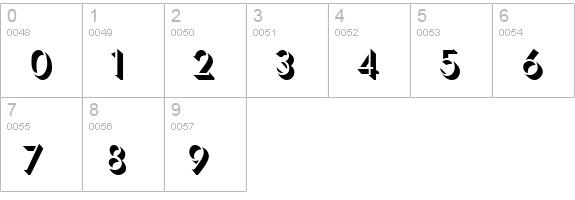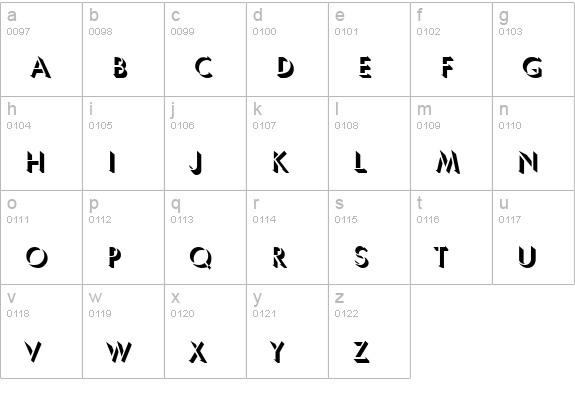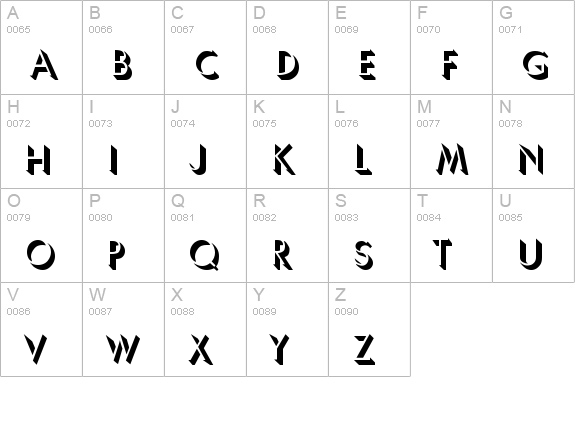
UltraShadow Font Details
Introducing UltraShadow font, a captivating typeface that effortlessly combines elegance and modernity. This font is perfect for those seeking to make a bold statement with their design projects. With its sleek and sharp edges, UltraShadow exudes a sense of strength and sophistication. What sets UltraShadow apart is not just its stunning visual appeal, but also the fact that it is available for free. Yes, you read that right - this remarkable font can be downloaded at absolutely no cost from FontsMarket.com. It is a true treasure for designers, allowing them to add a touch of finesse to their creations without breaking the bank. UltraShadow is incredibly versatile, making it suitable for a wide range of applications. Whether you're designing a logo, crafting a poster, or creating eye-catching headlines, this font will elevate your work to new heights. Its clean lines and impeccable readability ensure that your message is delivered with clarity and impact. With UltraShadow, you have the power to unleash your creativity. Let your imagination run wild as you experiment with different sizes, weights, and styles. This font adapts effortlessly to any design concept, whether you're going for a minimalist look or a more intricate composition. Don't miss out on the opportunity to enhance your projects with UltraShadow font. Visit FontsMarket.com today and experience the freedom of accessing this exceptional font for free. Elevate your designs and leave a lasting impression with UltraShadow - the font that combines style, versatility, and affordability.